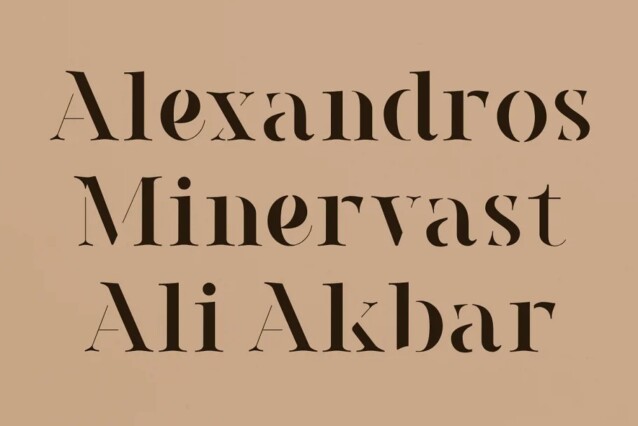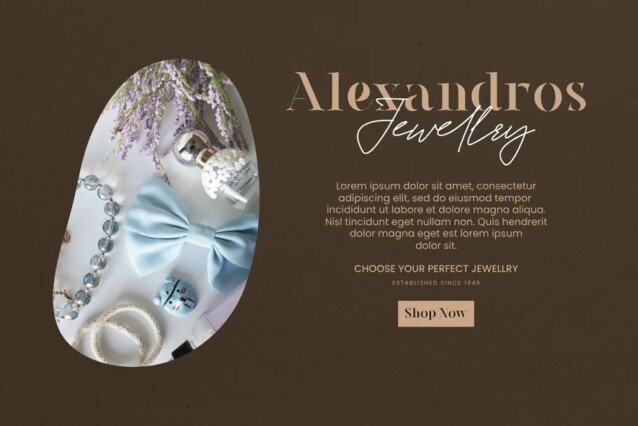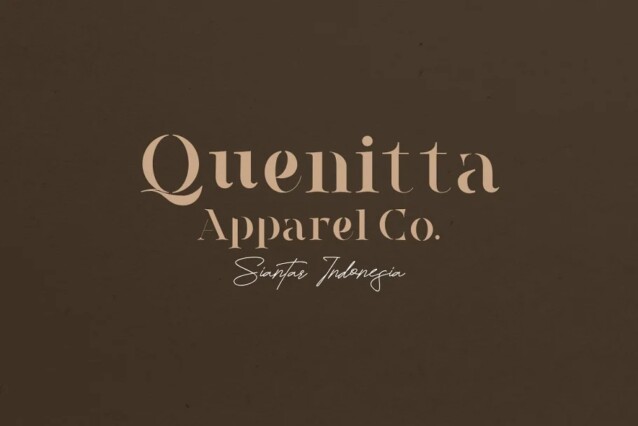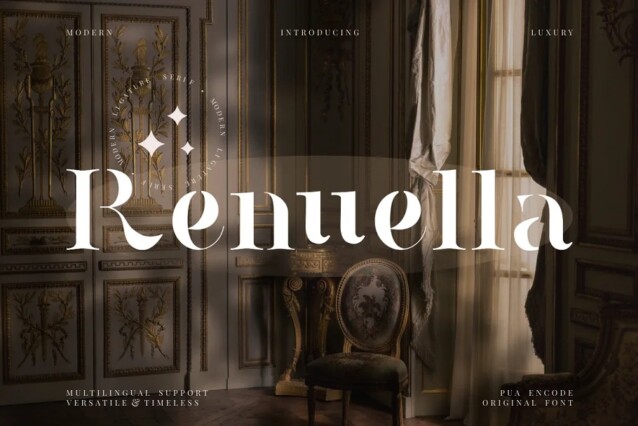
Renuella Font
Renuella Font is a stencil display font in a luxurious, classy, and timeless style. suitable for any projects such as: logos, branding projects, homeware designs, product packaging, mugs, quotes, posters, shopping bags, t-shirts, book covers, name card, invitation cards, greeting cards, label, photography, watermark, special events, and all your other lovely projects that need a beautiful serif taste.